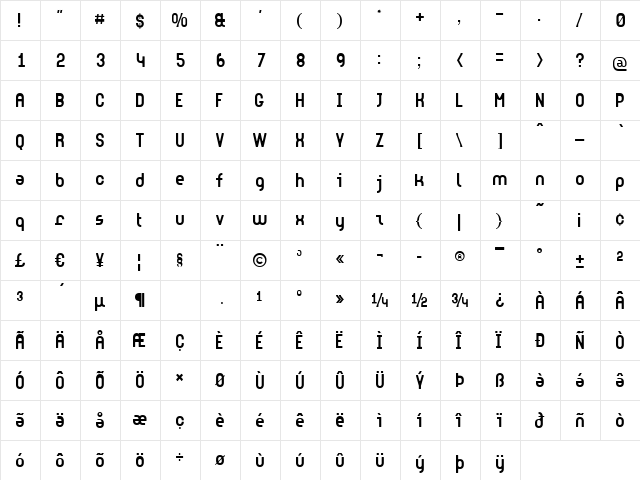
GAzole Normal Font Preview
GAzole Normal
GAzole Normal Font Details
Design Context for GAzole Typeface
GAzole takes a measured approach to typography — its balanced proportions and neutral character make it a reliable workhorse for both digital and print work.